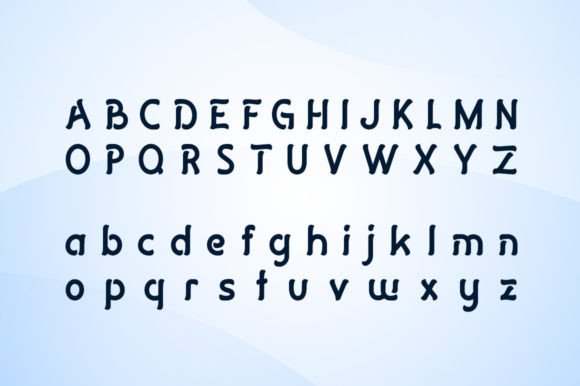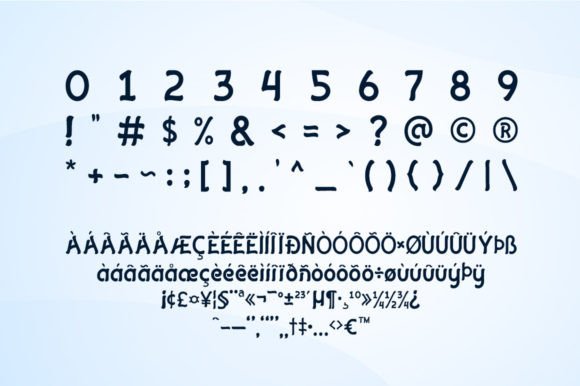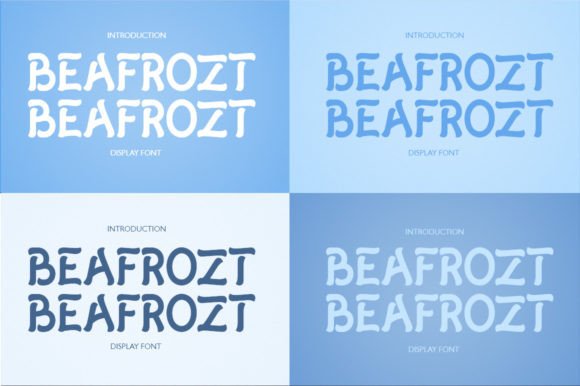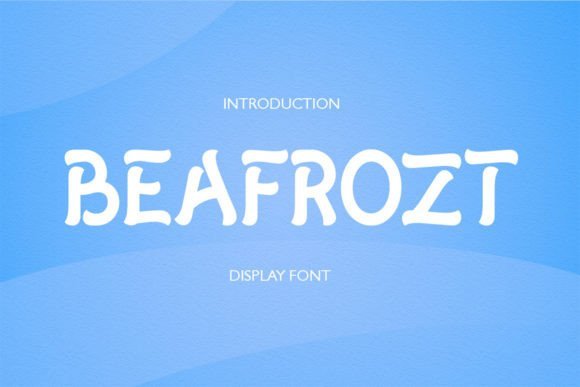
Introduction to Beafrozt Font
Beafrozt is a display font with a vintage art style, perfect for element designs, events, t-shirts, logos, badges, stickers, and more awesome work.
Key Features of Beafrozt Font